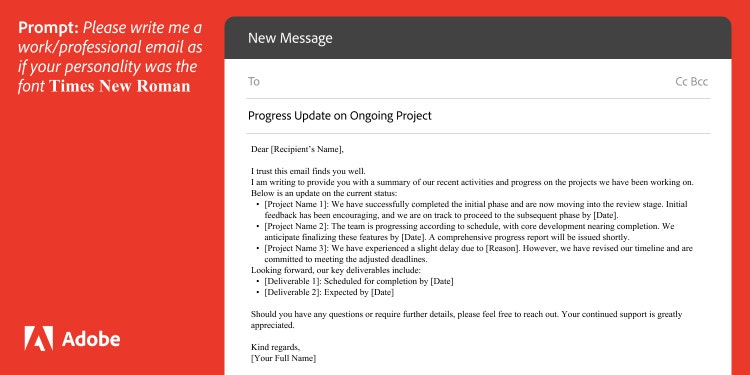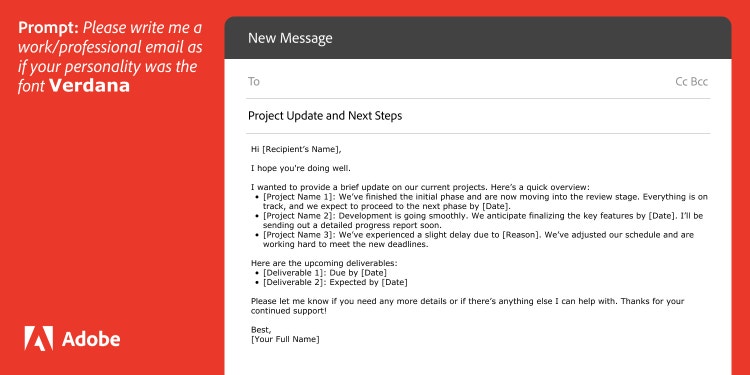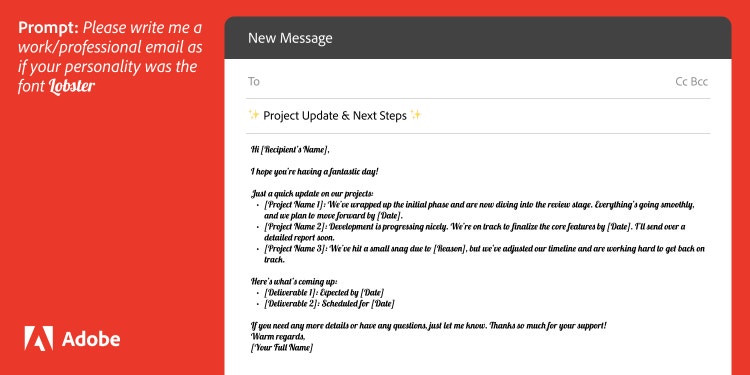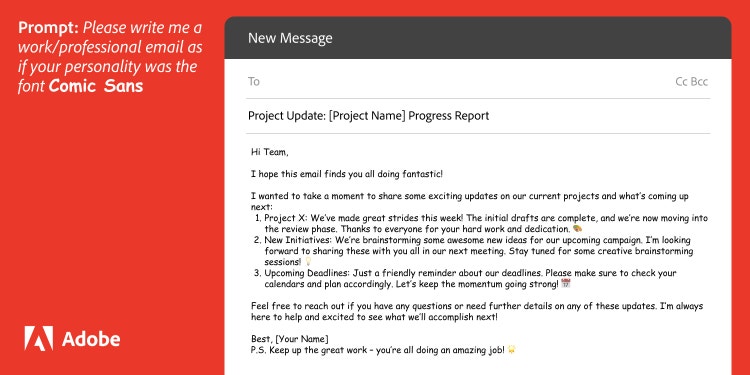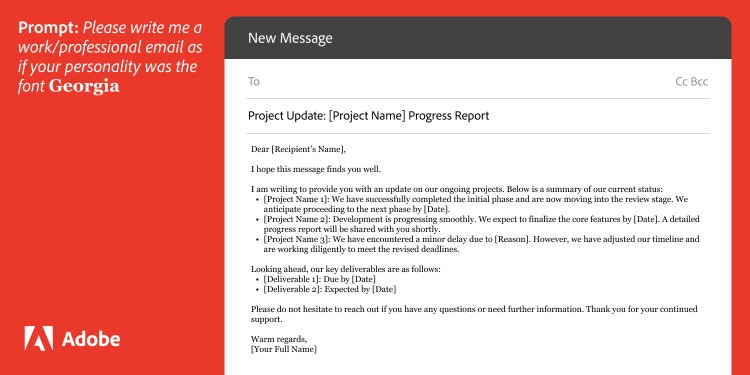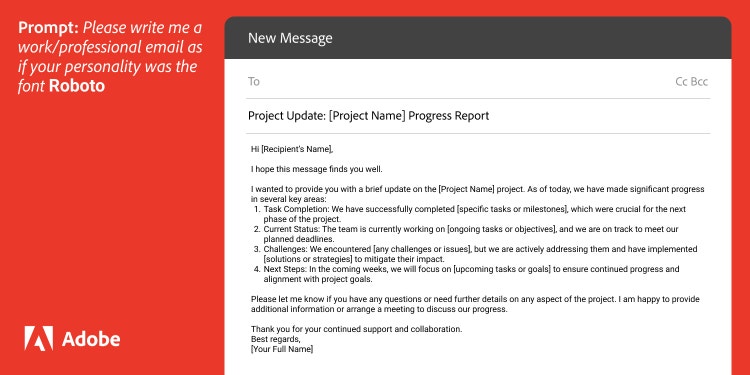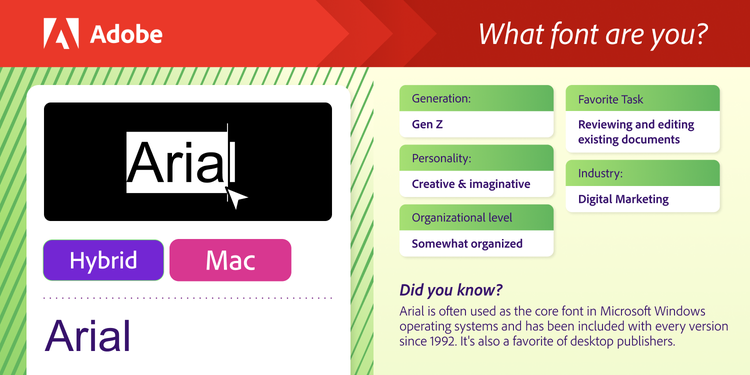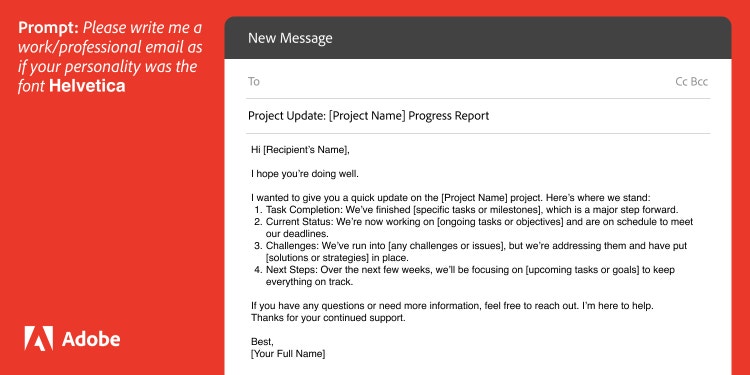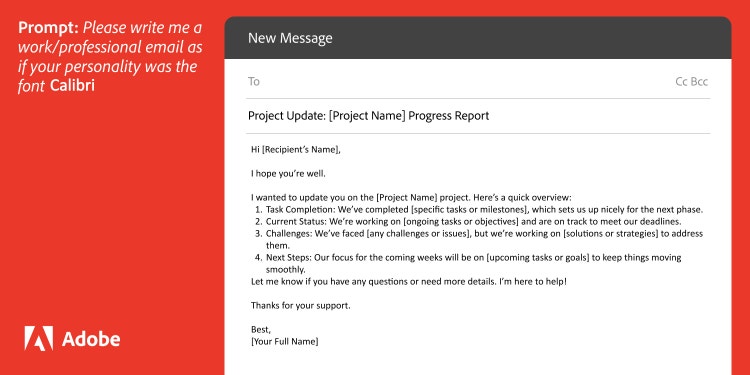
We all have different writing styles and tones of voice, but what if fonts did, too? What kind of personality would Calibri have?
Adobe Acrobat was curious about this, so we asked AI to write emails for 13 different fonts, each written as if that font had a personality. We then anonymously included these AI-generated emails in a survey of over 1,000 Americans to determine which font personality is the most relatable. Beyond discovering which font personalities stole the show, we also delved into participants' other workplace and font preferences, comprehensively understanding how fonts impact our daily lives.
Key Findings:
- Over 1 in 10 Americans find Comic Sans to be the most cringey font
- Times New Roman and Arial were the top fonts to be associated with a reputable business
- Based on our AI-generated emails showing if a font had a personality, over 1 in 4 people related most to
Courier New’s personality
Diving into the typographic minds of Americans
Embarking on our journey to explore font personalities, we asked AI to create a work update email as if it had the personality of various fonts. Using the prompt "Please write me a work/professional email as if your personality was the font [Insert Font Name]", AI was able to draft emails as if each font embodied a person.
Check out what the different fonts would sound like if they had a tone of voice:
We then anonymously shared each of these emails with over 1,000 Americans to see if any font personality stood out as the most relatable font. Here’s what we found:
After anonymously sharing the AI-generated emails in our survey, we found out which email personality and characteristics were the most relatable to Americans. Courier New’s personality was found to be the most relatable to the writing style of most Americans, based on the AI-generated font personality email. It ranked number 1 across all generations except baby boomers, where Impact was the most relatable AI-generated font email. However, the tried and true Times New Roman, if it had a personality, was not deemed most relatable to most Americans as it ranked 8th for being an email personality style Americans would use.
So, what font personality are you?
Delving further into the survey data, we unearthed some of the predominant traits of individuals who resonated most with each font's AI-generated email. See the personality cards for the 13 fonts below to determine which font you are most alike with!
Just as zodiac signs unveil the essence of one's character, these font personality cards hold the key to discovering your typographic kindred spirit, from the creative allure of Lobster to the practical charm of Arial. Let these font horoscopes illuminate your path and empower you to embrace the font persona that speaks to your digital identity.
Exploring fonts on a deeper level
Moving away from the font personalities, we wanted to explore feelings about fonts overall. The top favorite fonts in the US, ranging from the classic Times New Roman to the modern Calibri, offer a glimpse into the varied tastes and perceptions surrounding typefaces.
Fonts also carry a timeless influence that resonates across all generations. While Times New Roman is a Gen Z favorite, Baby Boomers feel that this classic font is the most outdated.
Selecting the right fonts is crucial for any business when defining brand identity and setting the tone for corporate messages. Serif fonts, such as Times New Roman or Georgia, are typically characterized by their elegance and are often associated with formality and professionalism. On the other hand, sans serif fonts, such as Arial or Calibri, are perceived as more casual and approachable with their clean and modern aesthetic. This distinction stems from the historical evolution of typography and the visual cues that different font styles evoke in viewers.
These emails were then included in a survey of 1,013 U.S. respondents to determine which AI-generated font personalities were most relatable and to explore general workplace and font preferences. From the survey data, we were able to create font persona cards based on the demographics of respondents who were most likely to identify with each of the 13 fonts. The survey relied on self-reported data, meaning there may be biases or discrepancies between respondents' reported abilities and actual abilities.